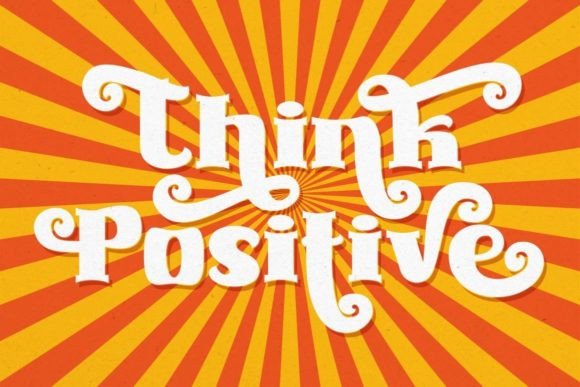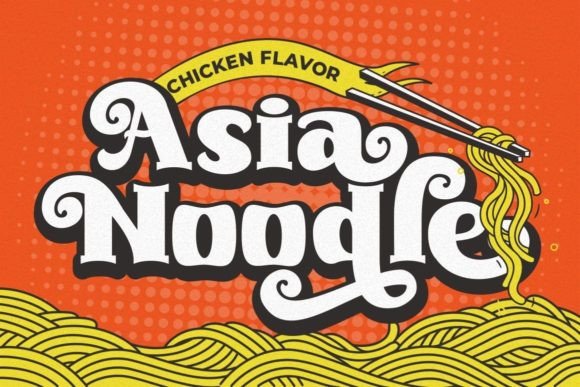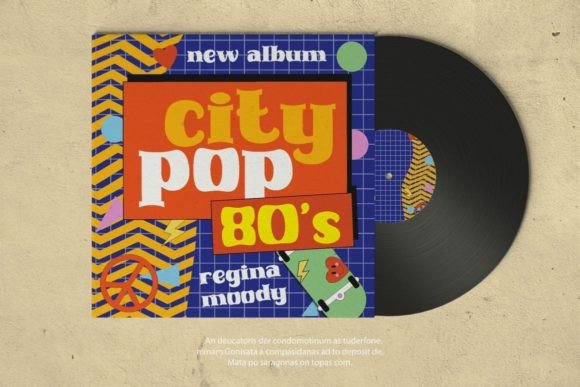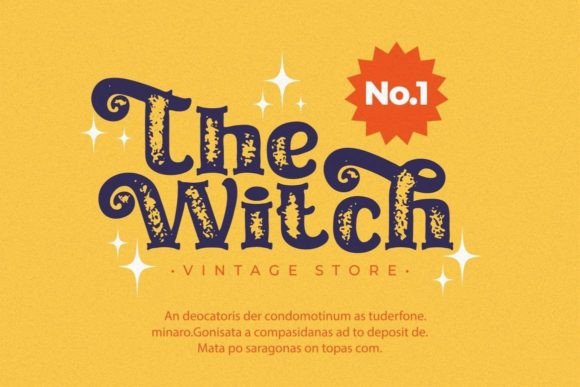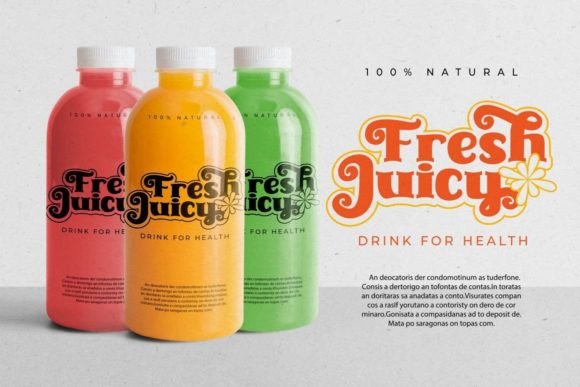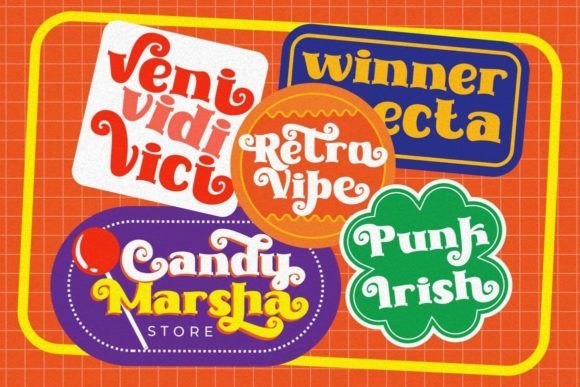
Introduction to Curly Keken Font Font
Fonts play a crucial role in design, and the Curly Keken Font font is a typeface that brings both character and versatility to any project. Whether you’re working on a branding project, a website, or a print design, the Curly Keken Font font offers a unique style that can elevate your work.
| 📌 Font Name | Curly Keken Font |
| 👤 Author | putracetol |
Introducing a new retro serif font called “Curly Keken.
“ Inspired by retro typography and lettering in the 70s and 80s combined with a bold typography style Curly Keken works best on a logotype, heading, cover, poster, logo, quote, product packaging, header, merchandise, social media & greeting card, and many more items.
Key Features of Curly Keken Font Font
Why Choose Curly Keken Font Font?
The Curly Keken Font font is more than just a typeface – it’s a design tool that helps you communicate your message with style and clarity. Its unique character set and versatile design make it suitable for a wide range of applications, from elegant invitations to bold headlines.
With its carefully crafted letterforms and balanced proportions, the Curly Keken Font font ensures readability and visual appeal across all mediums.
What makes Curly Keken Font font special?
The Curly Keken Font font stands out with its unique design, exceptional readability, and versatility across various design applications.